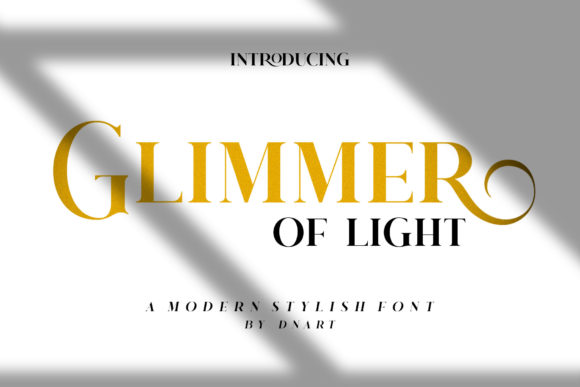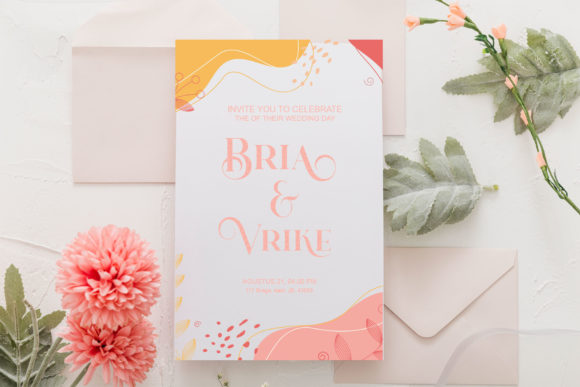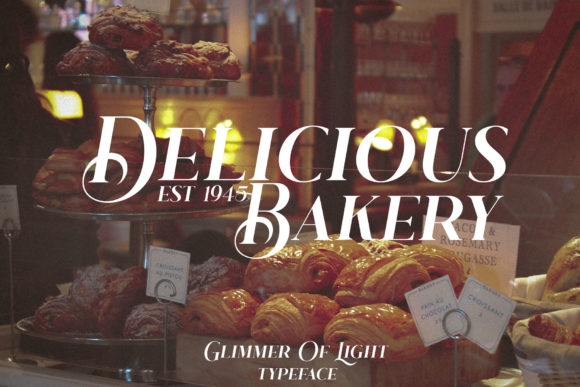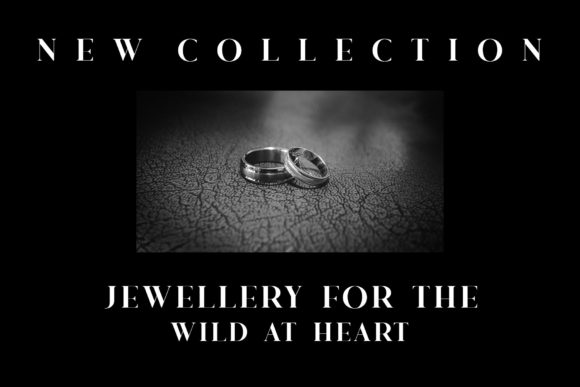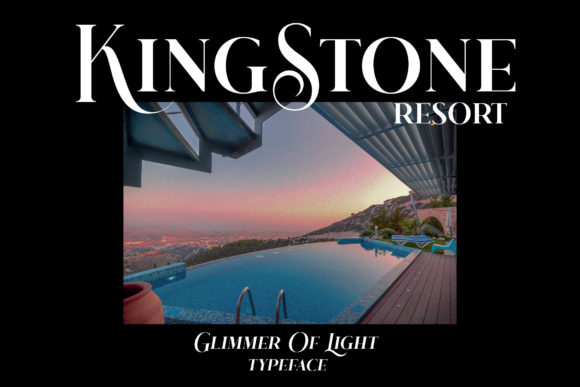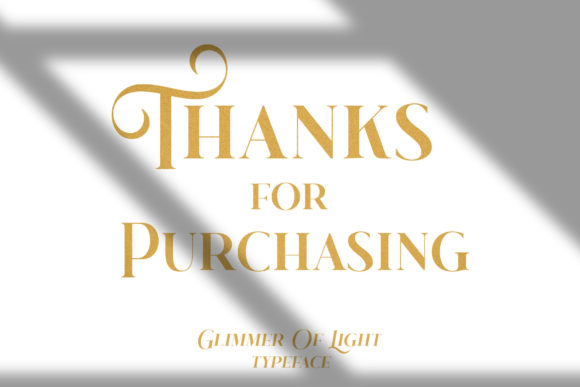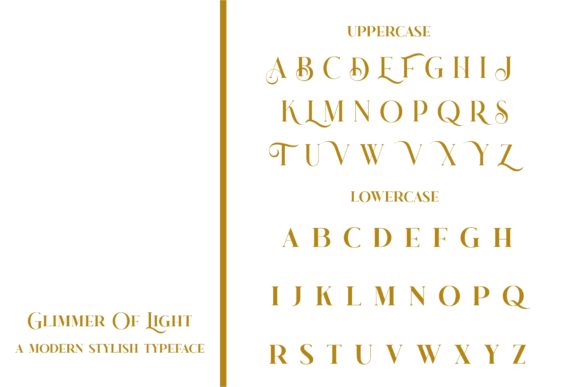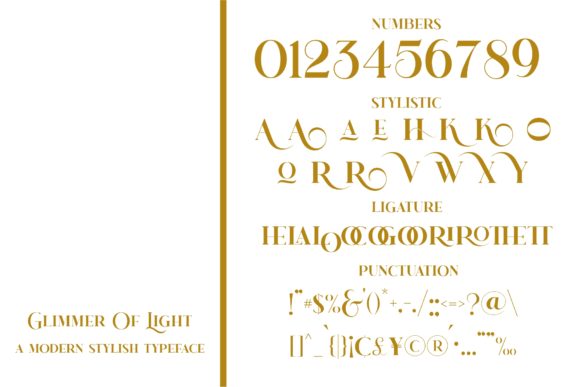
Glimmer of Light Font
Glimmer Of Light is an elegant and bold serif font. Fall in love with its incredibly versatile style and use it to create spectacular designs!